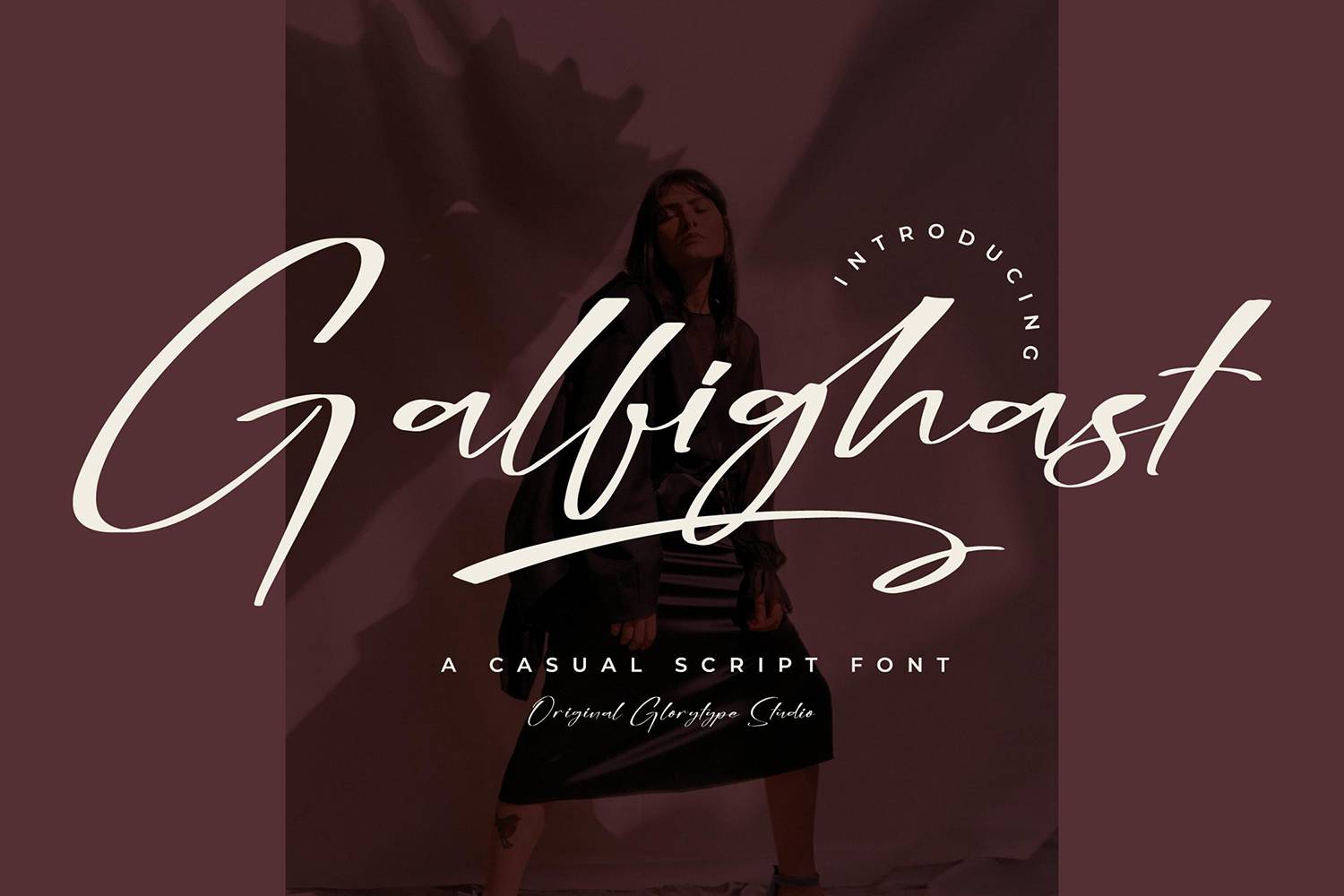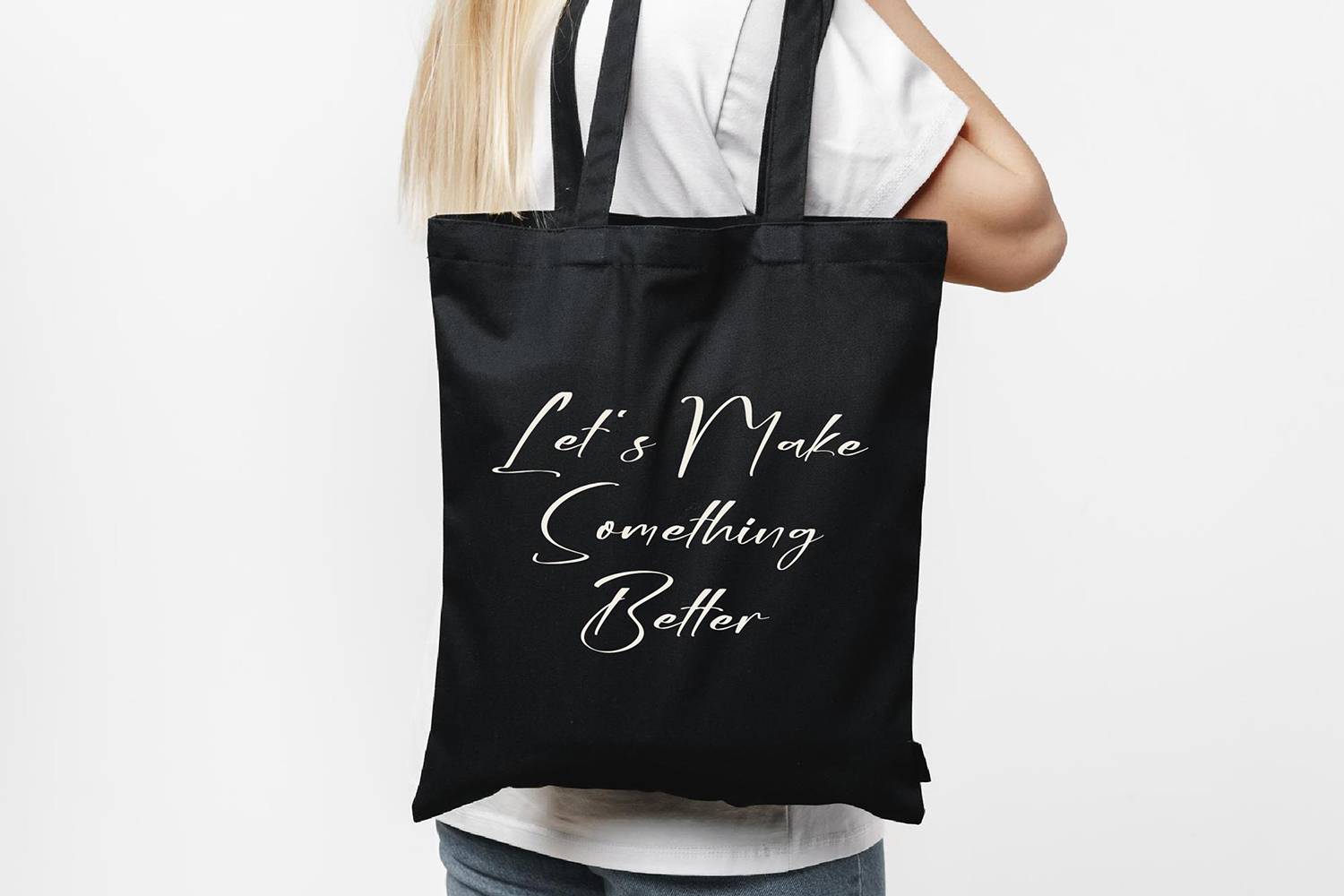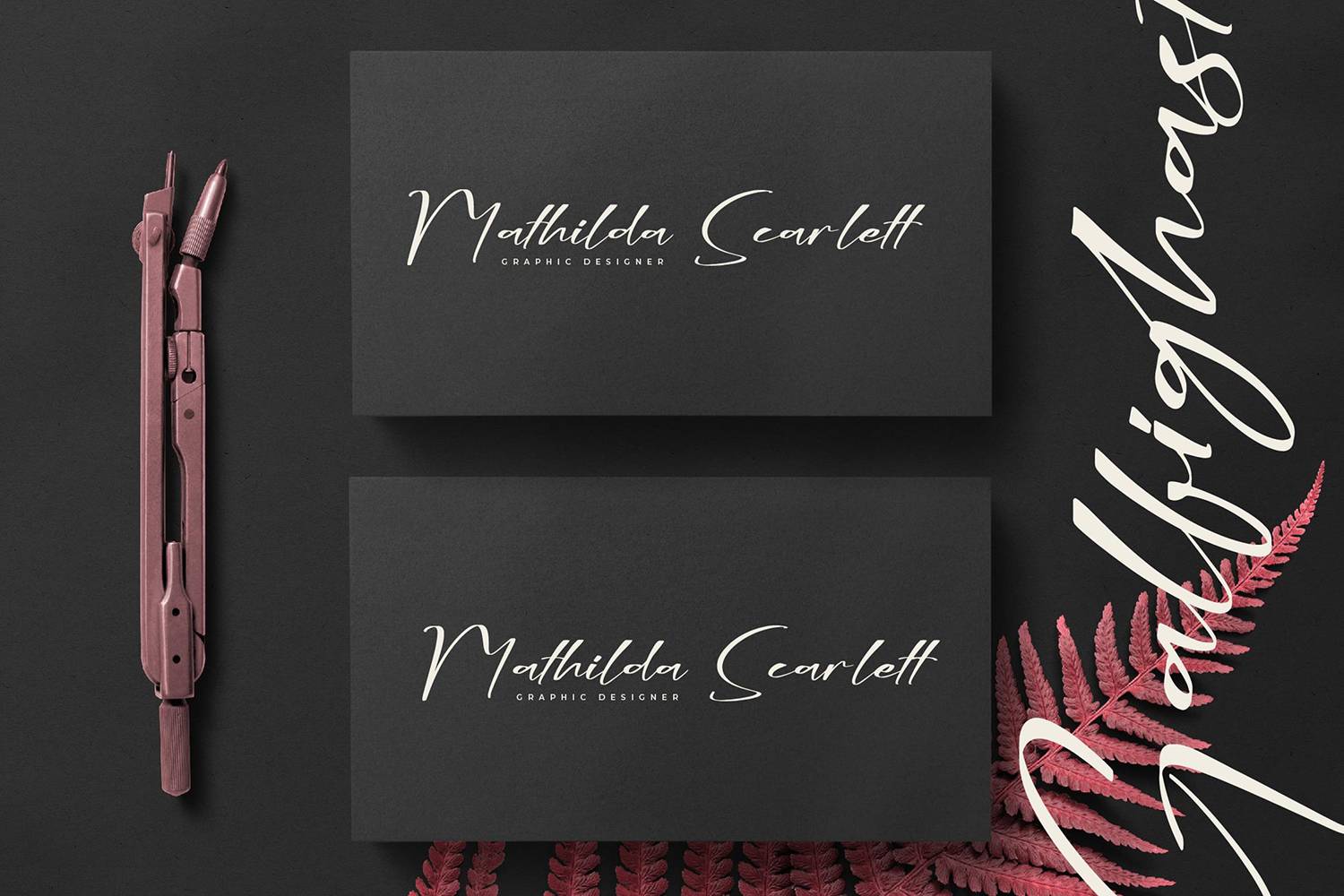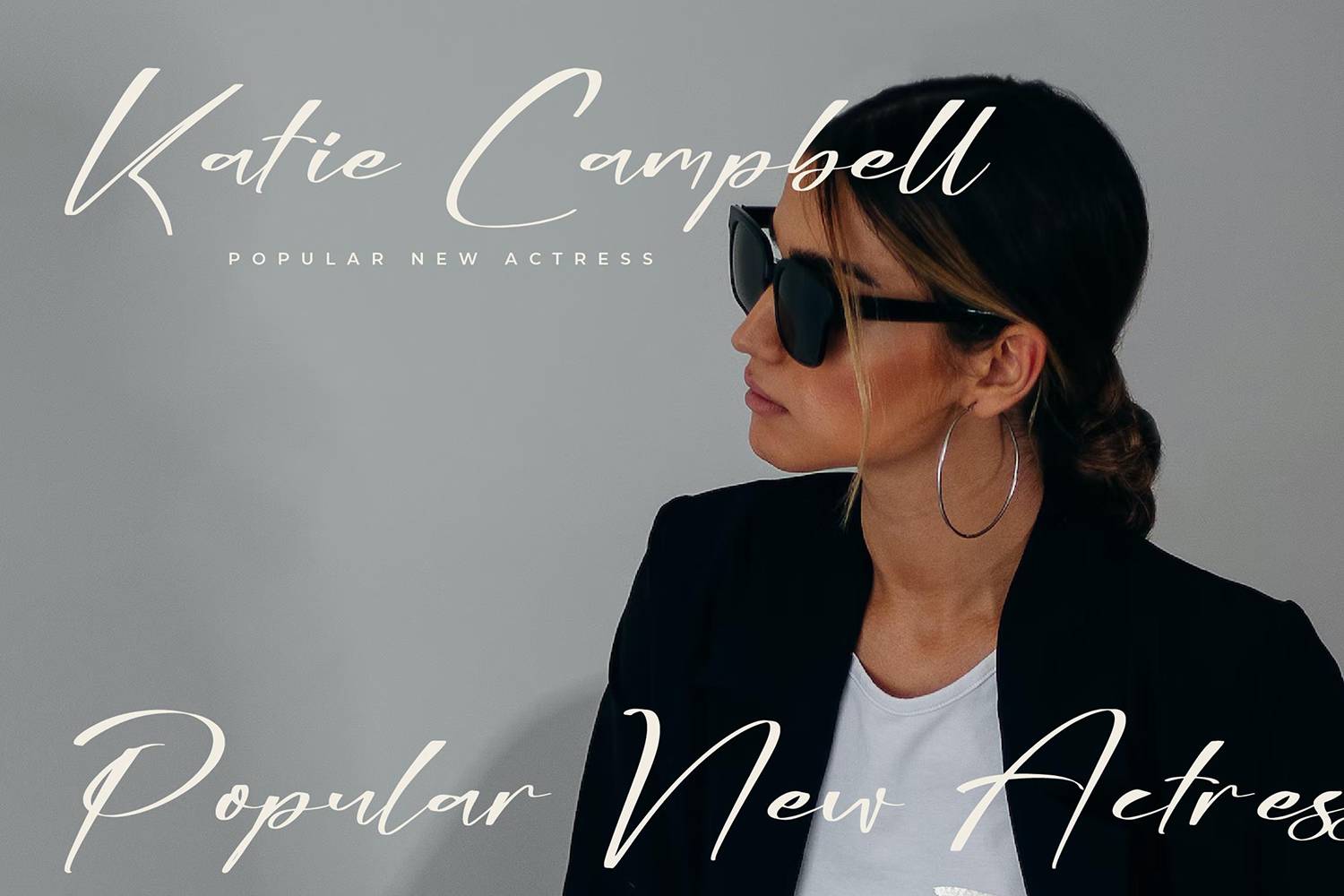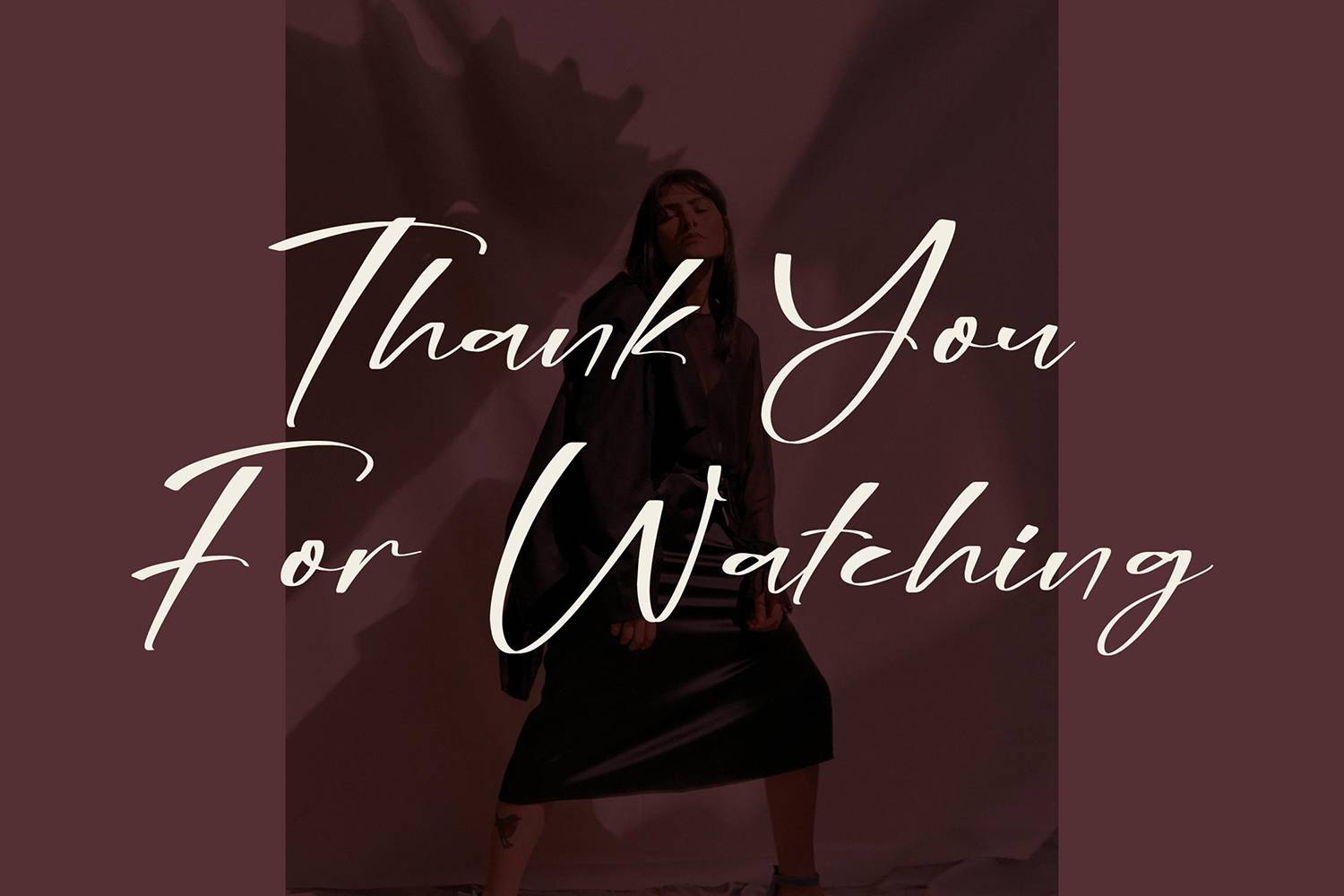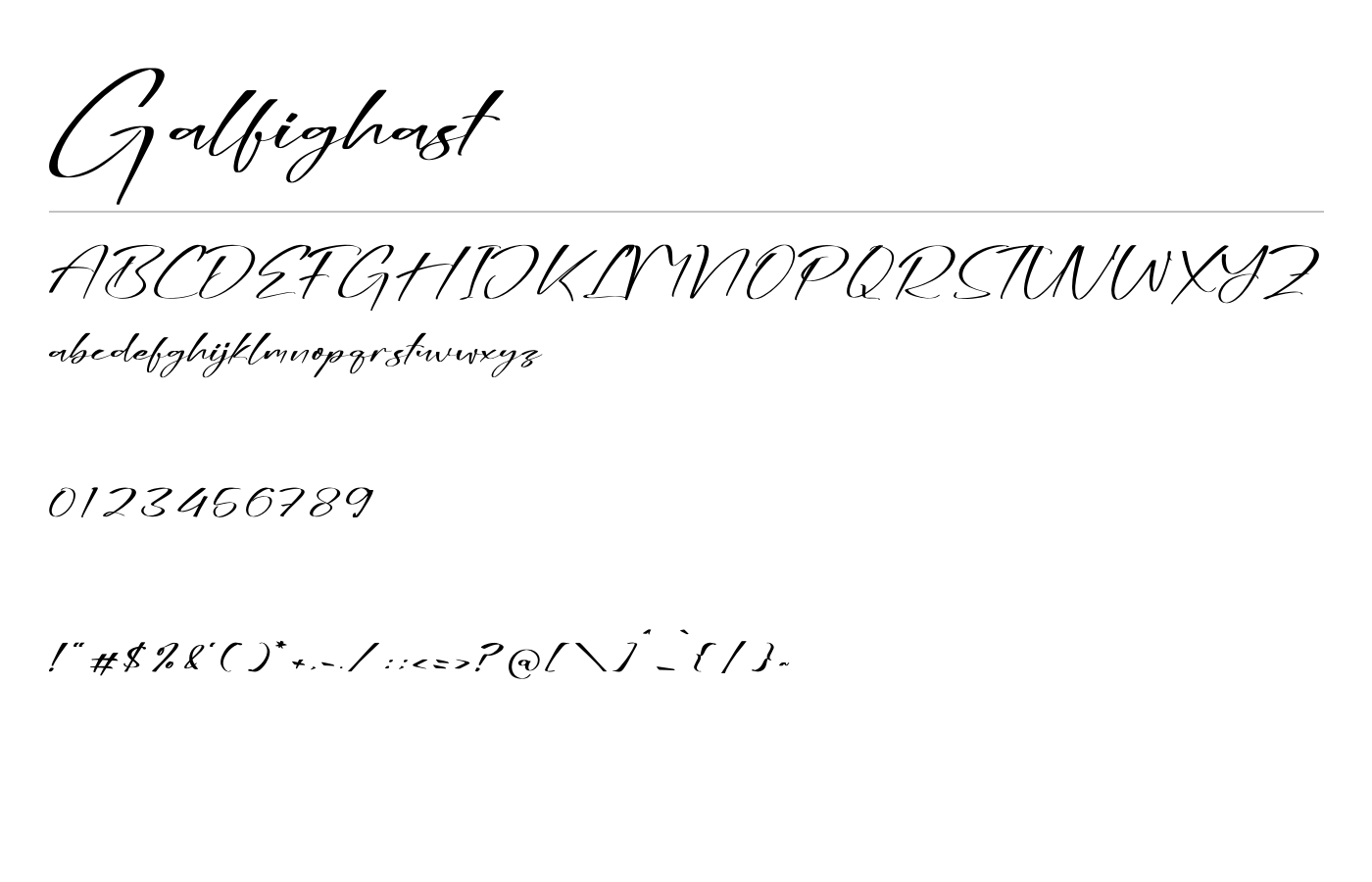
Galfighast is an elegant, delicate script font with a handwritten, calligraphic style that features slender, flowing strokes and a graceful, slightly italicized slant. Its refined and airy letterforms, including distinctive uppercase characters and smoothly connected lowercase letters, make it perfect for sophisticated branding, invitations, and stylish editorial designs where a personal, artistic touch is desired. This font works best in contexts that want to convey charm, refinement, and a modern yet timeless elegance.
Galfighast Font
About Galfighast Font